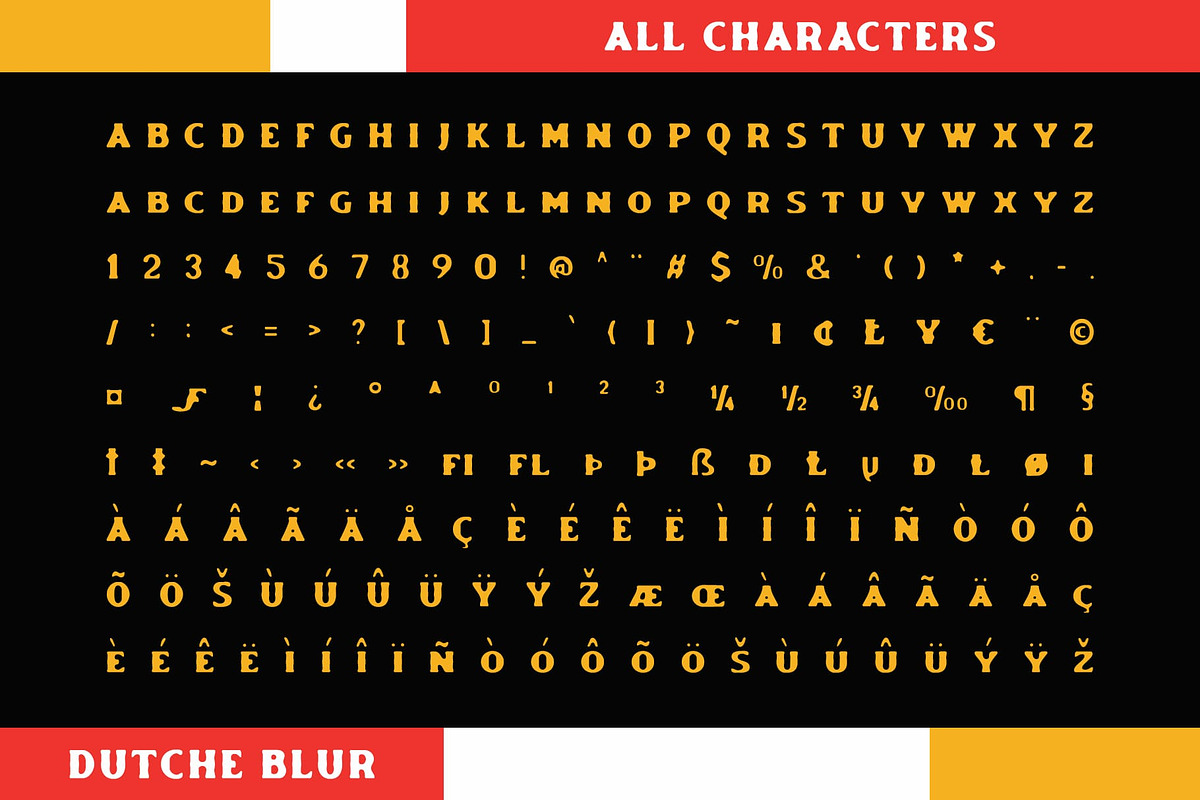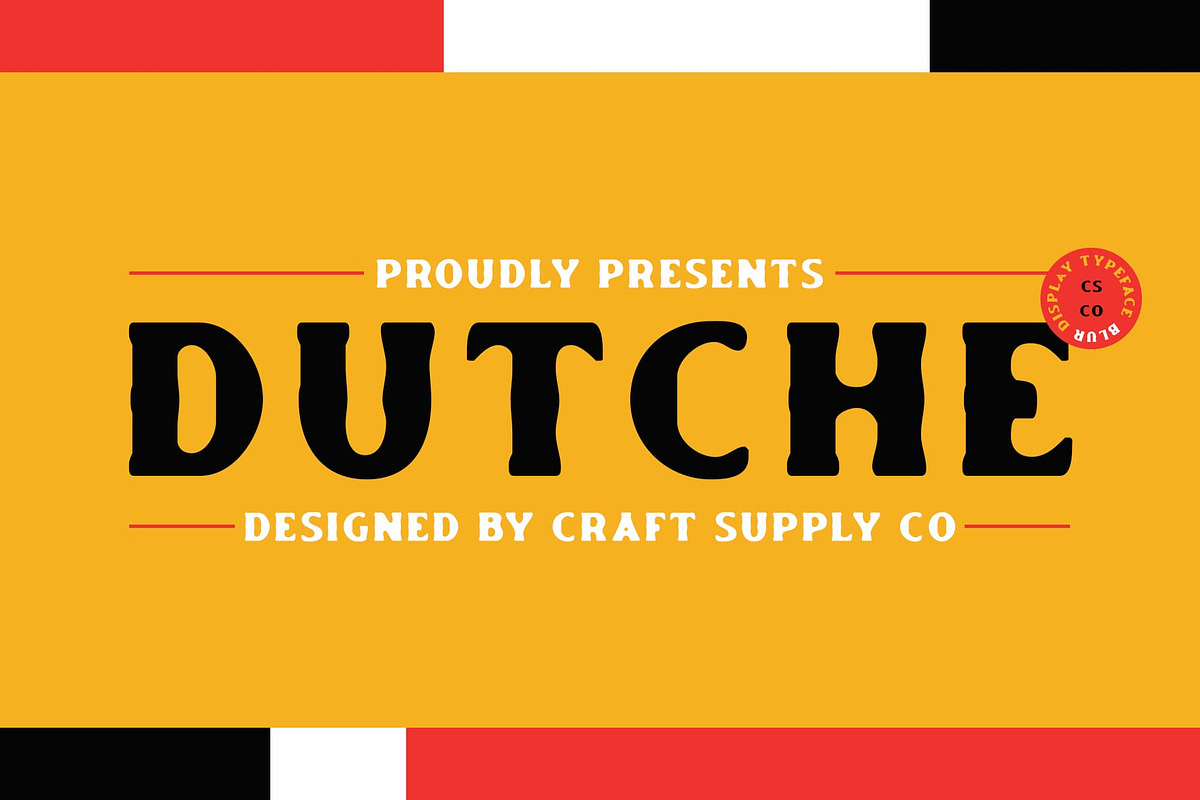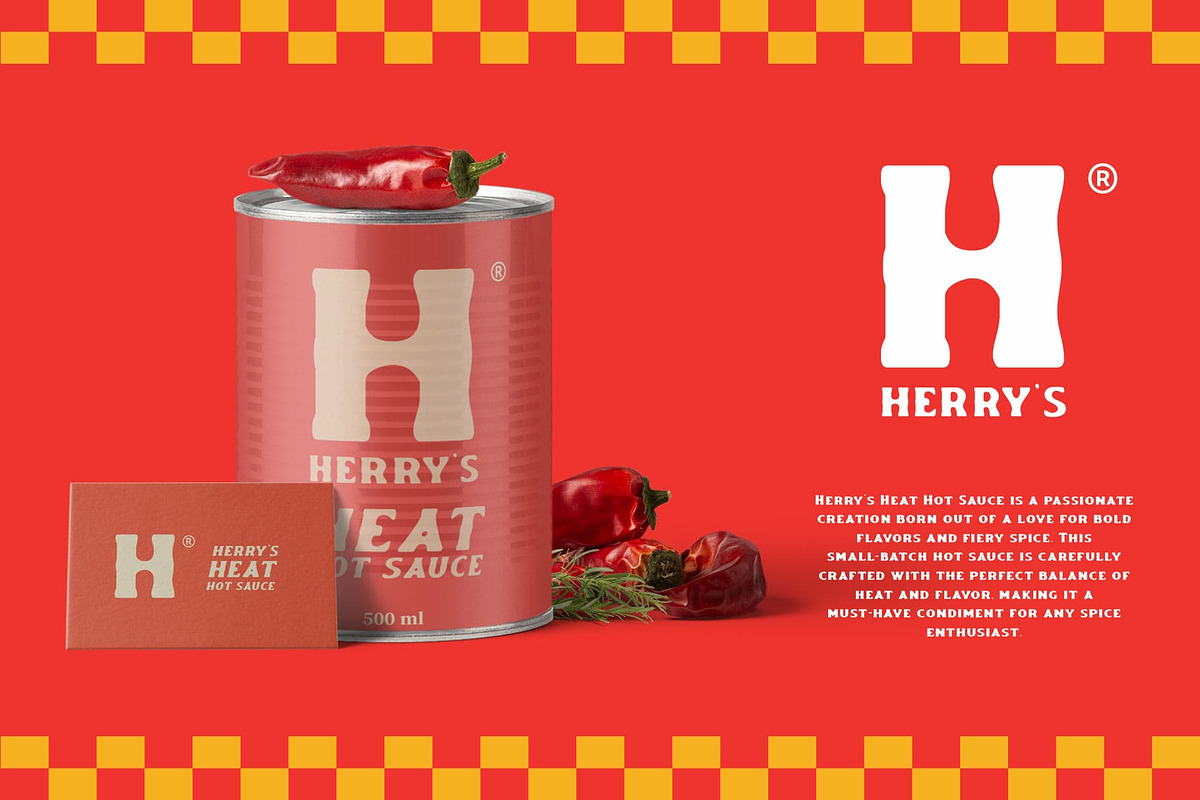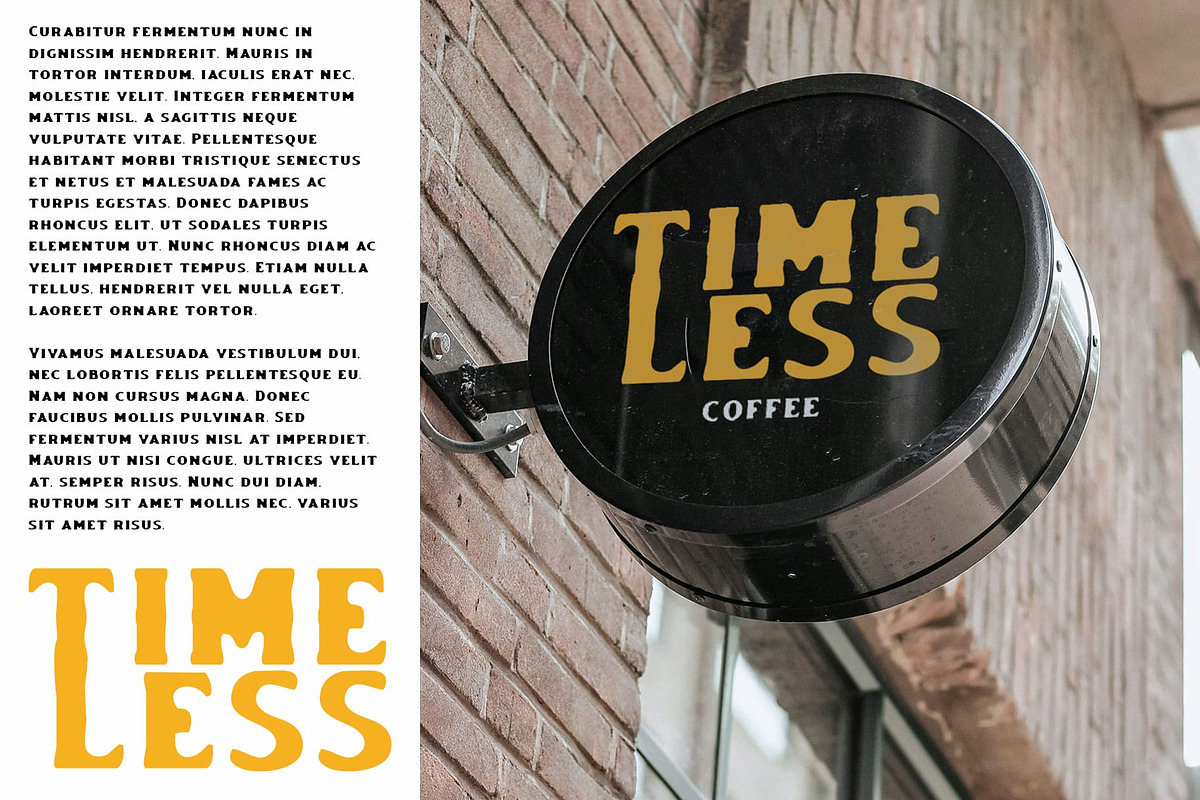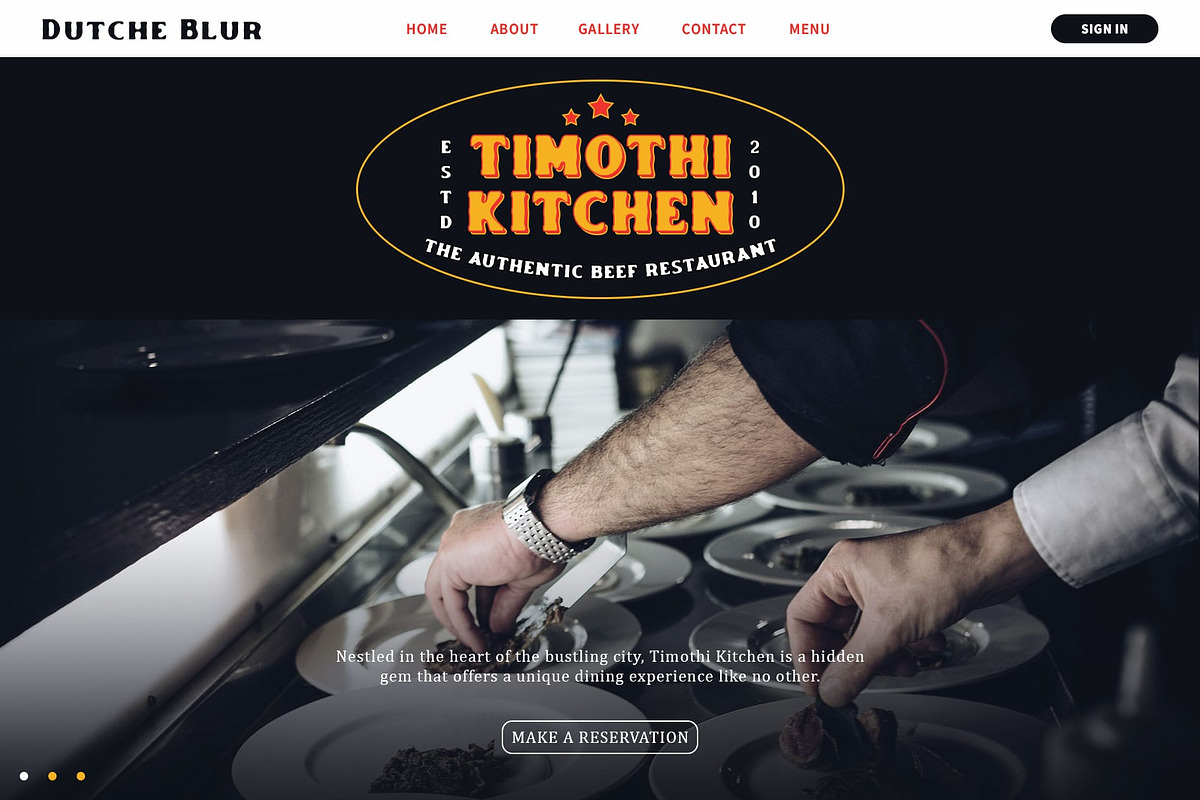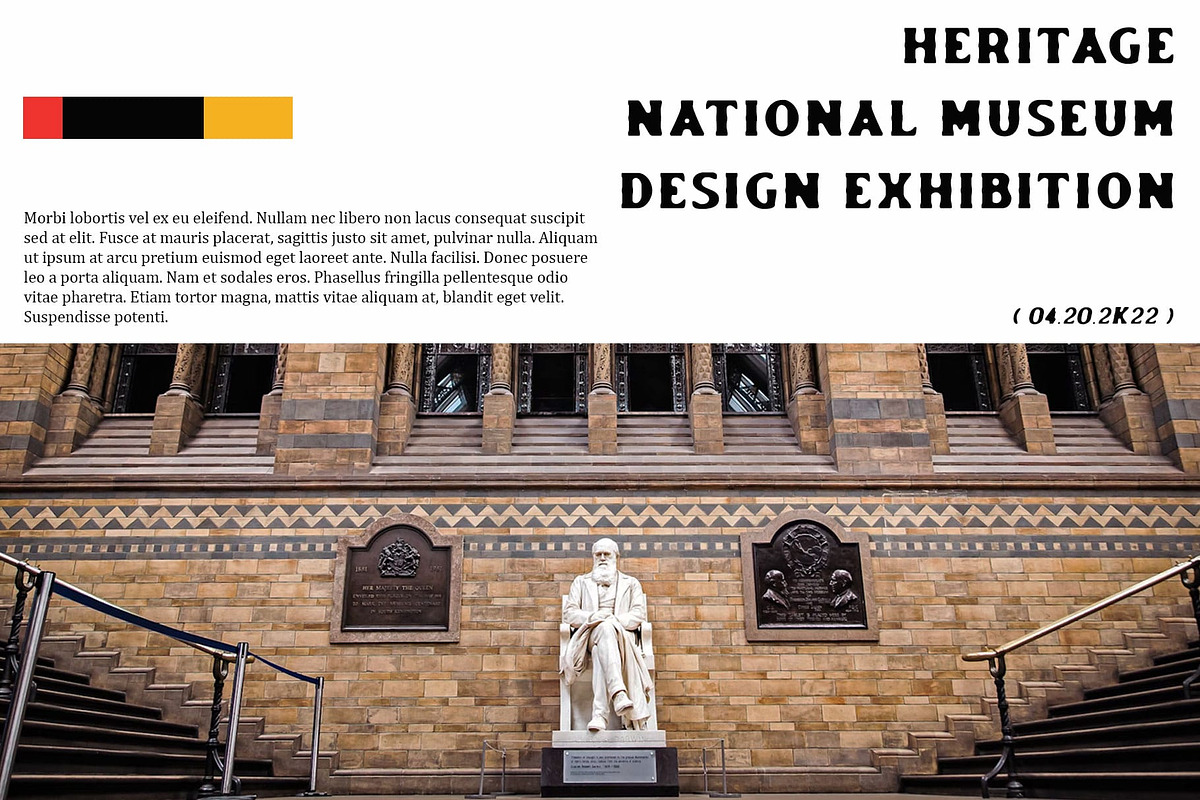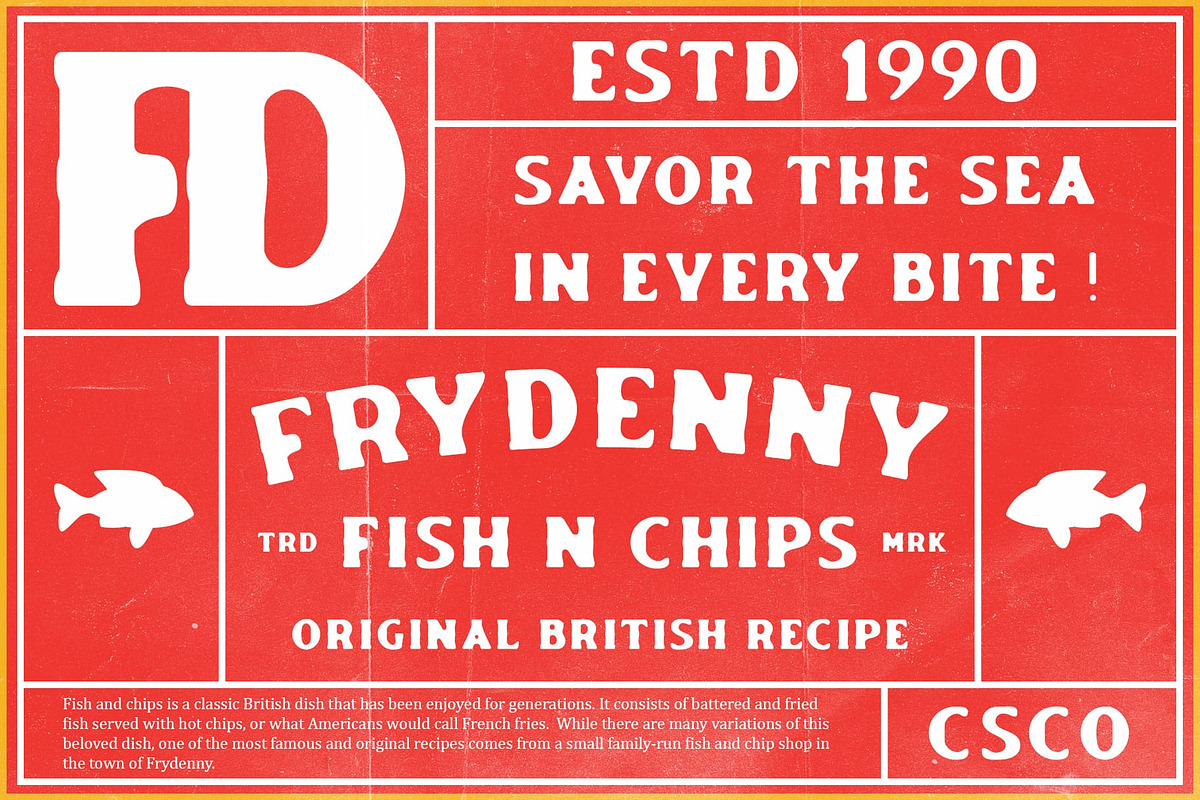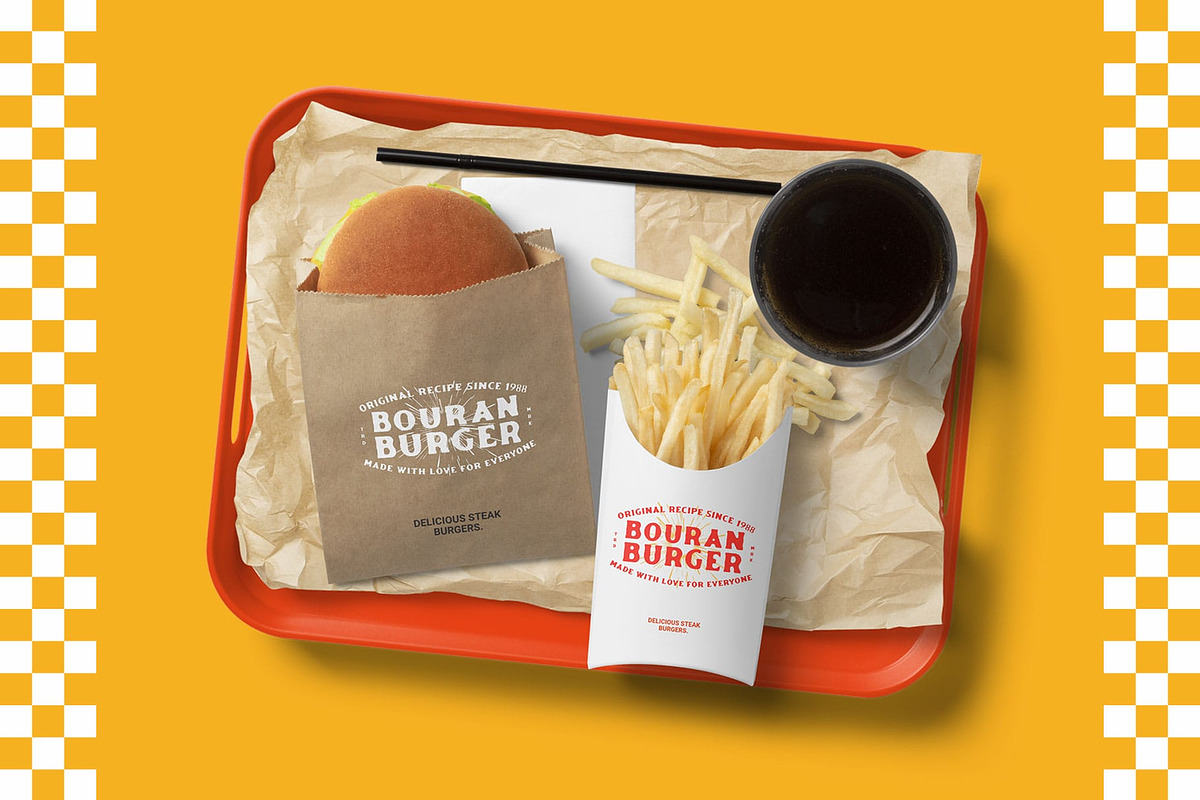
Dutche Blur
Dutche Blur: Wild West Display Serif Font
Bold Retro Elements with a Contemporary Twist
Dutche Blur is a display serif font featuring a Wild West style that combines bold, retro elements with a blur effect to create a unique and eye-catching look. This font captures the rugged charm of the old frontier with its thick, decorative serifs and vintage-inspired design.
Vintage-Inspired with Modern Flair
With its thick, ornamental serifs and Wild West influence, Dutche Blur evokes the spirit of the old frontier. The font’s vintage aesthetic is complemented by a blur effect that softens the edges and adds a modern twist, creating a visually striking contrast.
Ideal for Themed Designs
Perfect for posters, branding, and themed event invitations, Dutche Blur enhances your designs with its unique blend of retro and contemporary styles. Whether you’re aiming to capture the essence of the Wild West or add a touch of vintage flair to modern projects, this font provides an engaging and distinctive look.
Elevate Your Designs with Dutche Blur
Choose Dutche Blur to elevate your designs with a display serif font that combines Wild West charm and modern sophistication. This font ensures your projects stand out with a bold, eye-catching appearance, making them memorable and visually appealing.